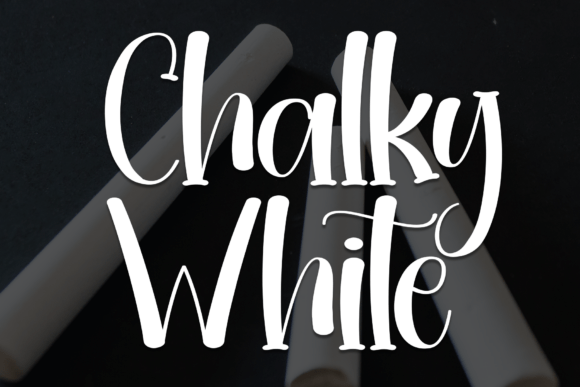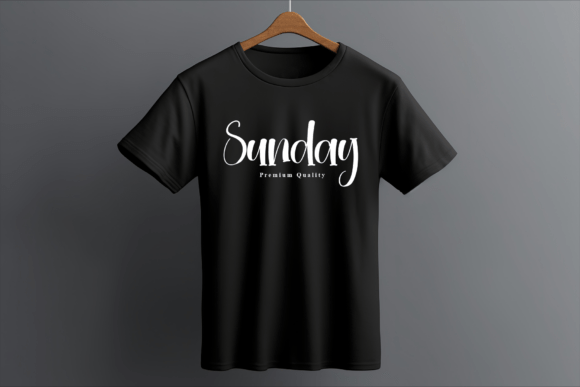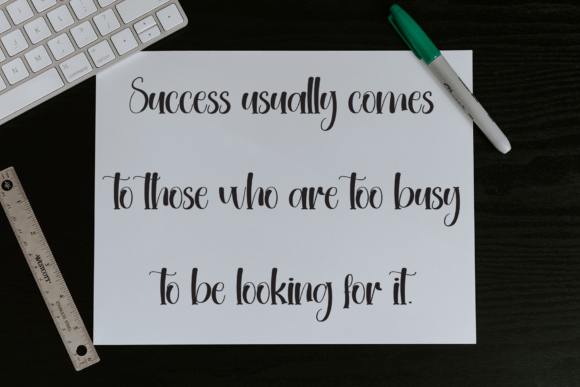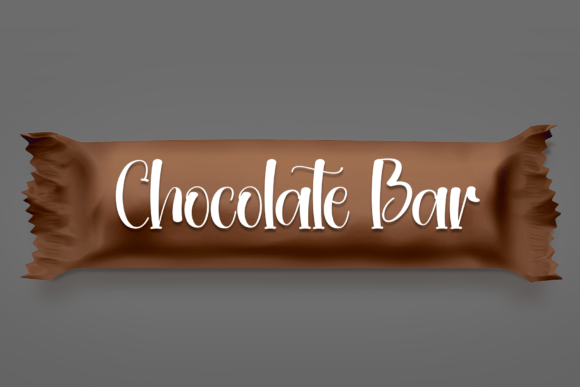
Chalky White Font
Capture the nostalgic charm of chalk writing with Chalky White, a stylish handwritten font that mimics the look of chalk on a blackboard. With its playful yet elegant strokes, this font is perfect for cafe menus, school projects, rustic branding, DIY crafts, and signage. Whether you’re aiming for a vintage classroom feel or a modern farmhouse aesthetic, Chalky White adds a unique handwritten touch.